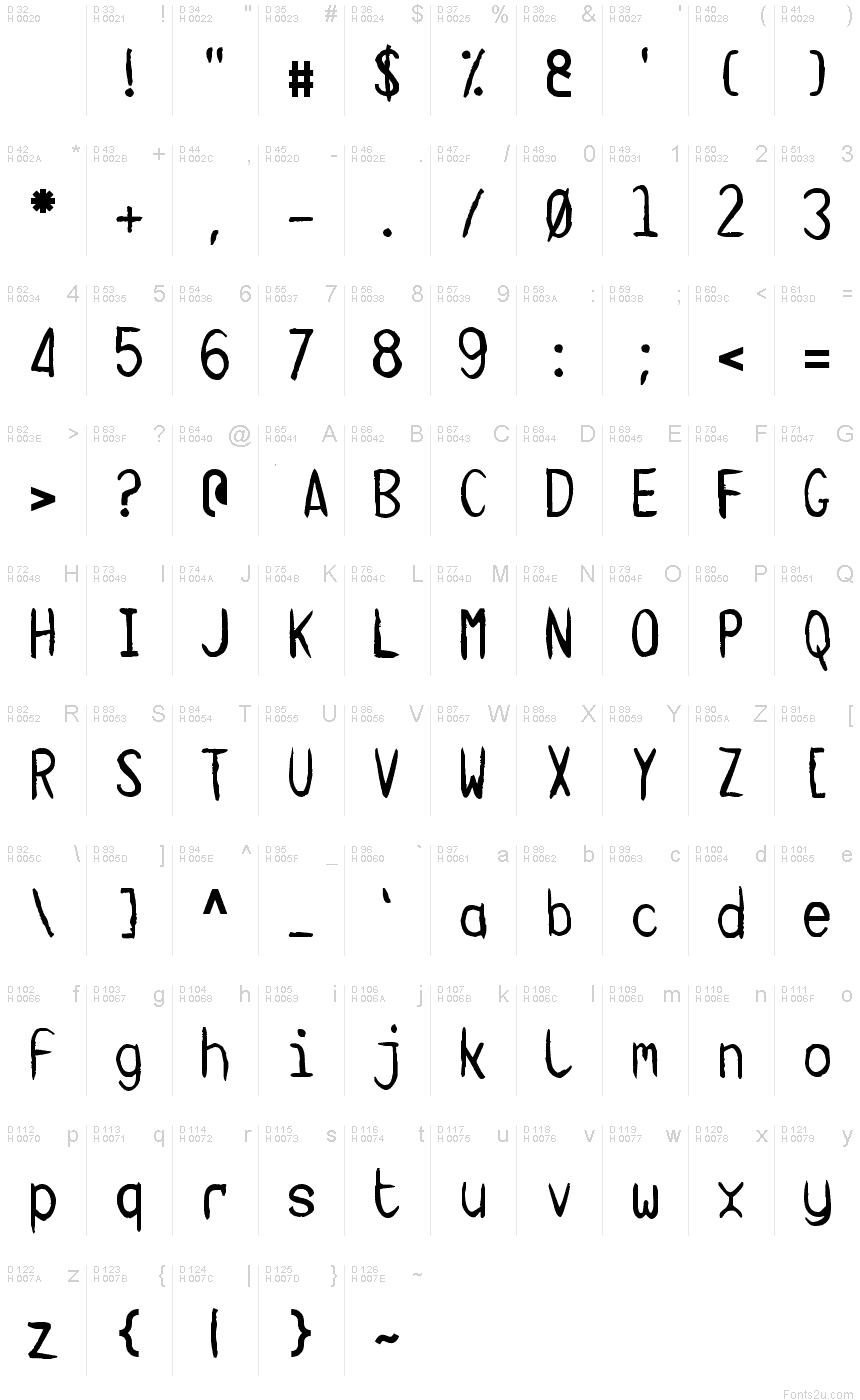
Targa MS Hand by Cosimo Lorenzo Pancini of Studio Kmzero is a free hand-drawn brush display font with an unruly, wiry silhouette. Uneven stroke widths and nicked edges keep the letters visibly handmade.
A craft beer label or indie music venue could use its rough, improvised forms for branding, with posters and merchandise extending the same identity. In editorial design, it suits magazine cover lines tied to street art, DIY culture, or experimental music.
Targa is a condensed sans-serif font.
Targa has a hand-drawn version called Targa Hand.